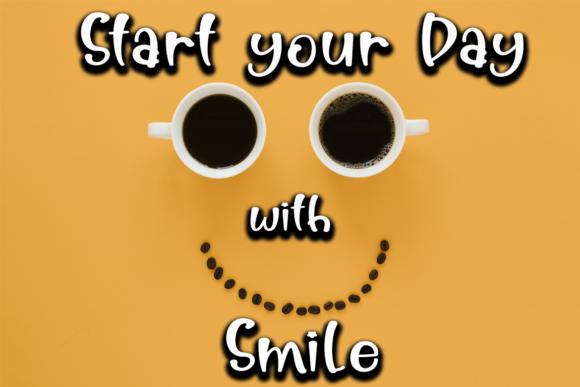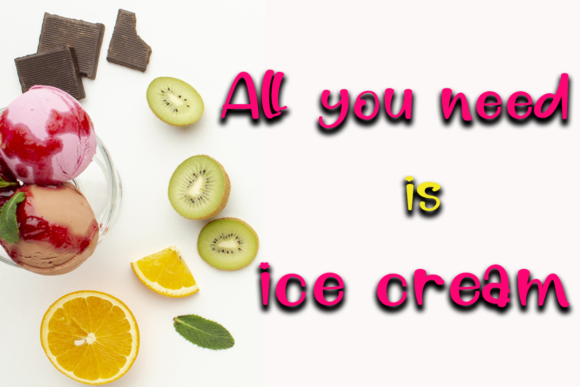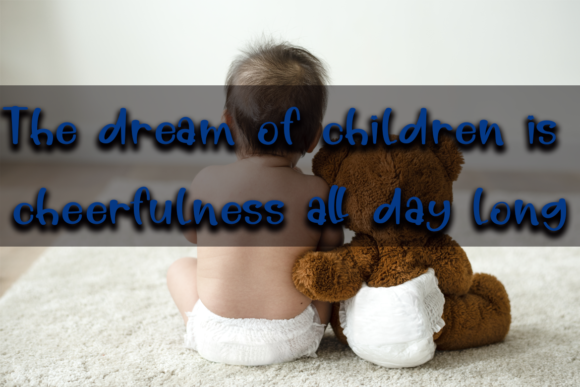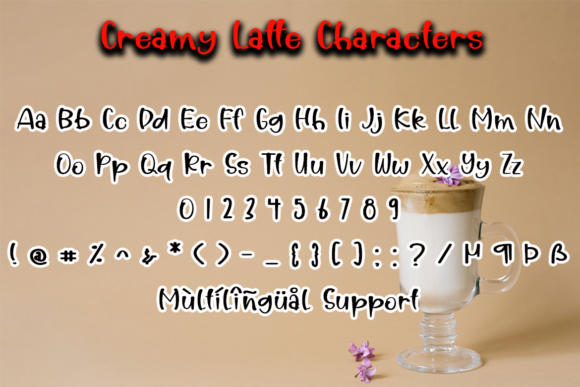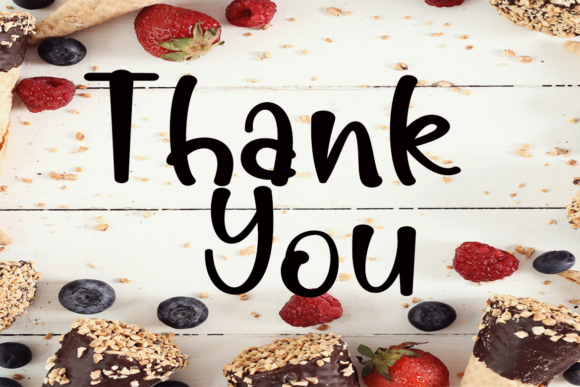
Creamy Latte Font: The Perfect Addition to Your Design Collection
Are you tired of using the same old fonts in your designs? Do you want to add a touch of whimsy and personality to your creations? Look no further than the Creamy Latte font! This adorable handwritten font is sure to bring a smile to your face and make your designs stand out from the crowd.
What is Creamy Latte Font?
Creamy Latte is a cute and quirky handwritten font that is perfect for designers and crafters who want to add a playful touch to their work. With its unique and charming lettering style, this font is sure to capture the attention of your audience and leave a lasting impression.
Characteristics of Creamy Latte Font
So, what makes Creamy Latte font so special? Here are just a few of its key characteristics:
- Handwritten style: Creamy Latte font has a beautiful, handwritten style that gives it a personal and friendly feel.
- Cute and quirky: This font is playful and fun, making it perfect for designs that need a touch of whimsy.
- Unique lettering style: The lettering style of Creamy Latte font is unlike anything you’ve seen before. Its distinctive look is sure to make your designs stand out.
- Easy to read: Despite its playful style, Creamy Latte font is easy to read and understand, making it perfect for use in a variety of design applications.
Uses for Creamy Latte Font
So, what can you use Creamy Latte font for? The possibilities are endless! Here are just a few ideas to get you started:
- Social media graphics: Add a touch of personality to your social media graphics with Creamy Latte font. It’s perfect for creating fun and engaging posts that will capture the attention of your followers.
- Branding and packaging: Use Creamy Latte font to create unique and eye-catching branding and packaging for your products. It’s a great way to stand out from the competition and build a loyal customer base.
- Invitations and cards: Create beautiful and personalized invitations and cards with Creamy Latte font. It’s perfect for special occasions like weddings, birthdays, and holidays.
- Web design: Add a touch of whimsy to your website with Creamy Latte font. It’s a great way to create a fun and engaging online experience for your visitors.
Why Choose Creamy Latte Font?
So, why should you choose Creamy Latte font for your design projects? Here are just a few reasons:
- Unique and eye-catching: Creamy Latte font is unlike anything you’ve seen before. Its unique and eye-catching style is sure to capture the attention of your audience.
- Easy to use: This font is easy to use and works well in a variety of design applications.
- Versatile: Creamy Latte font can be used for a wide range of design projects, from social media graphics to branding and packaging.
- Fun and playful: This font is perfect for designers and crafters who want to add a touch of fun and playfulness to their work.
In conclusion, Creamy Latte font is a beautiful and unique handwritten font that is perfect for designers and crafters who want to add a touch of whimsy and personality to their work. With its cute and quirky style, this font is sure to capture the attention of your audience and leave a lasting impression. So why not give Creamy Latte font a try today and see how it can elevate your designs to the next level?